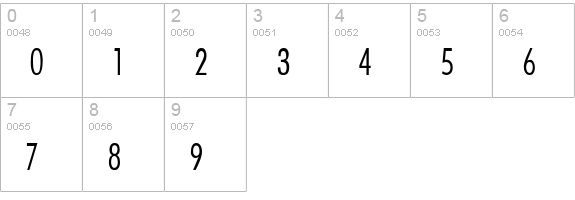
Futura-CondensedLight-Thin is a delicate, low-contrast variant in the Futura typeface family \xE2\x80\x94 well suited to fashion editorial, minimal branding, and high-contrast display.
Futura-CondensedLight-Thin font is a sleek and modern typeface that exudes elegance and sophistication. With its thin and light weight, this font is perfect for creating a minimalist and refined look in your designs. Its clean lines and geometric shapes give a contemporary feel, making it ideal for a variety of projects such as branding, editorial design, and advertising. The best part about Futura-CondensedLight-Thin font is that it is available for free download at FontsMarket.com. You can easily access this stylish font and enhance your creative projects without any cost. Embrace the versatility and timeless appeal of Futura-CondensedLight-Thin font in your designs and elevate your typography game to the next level.